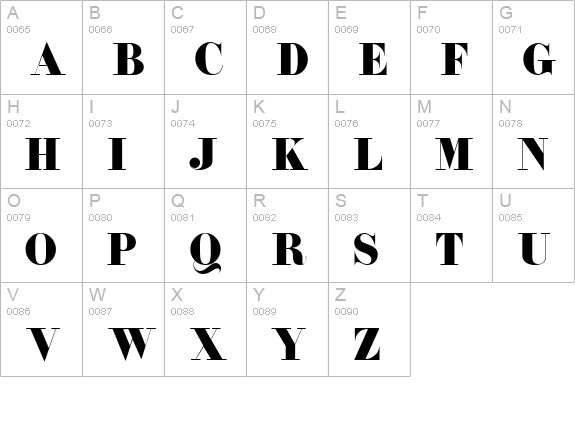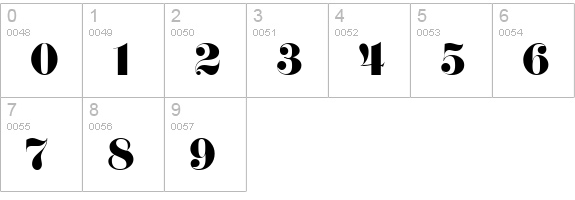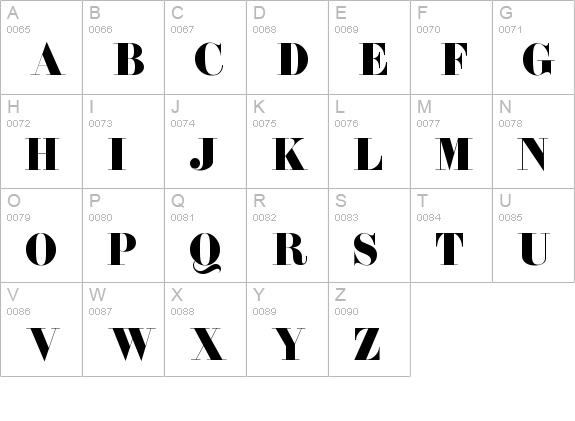
Firenze Regular is the standard, neutral variant in the Firenze typeface family \xE2\x80\x94 well suited to general body text, paragraphs, and standard typographic work.
Firenze Regular is a modern and elegant typeface that exudes sophistication and style. With its clean lines and balanced proportions, this font is perfect for a wide range of design projects, from branding to editorial design. The timeless appeal of Firenze Regular makes it a versatile choice for both print and digital applications. The best part is that Firenze Regular is available for free download at FontsMarket.com. This means you can easily access this high-quality font without any cost, allowing you to bring a touch of class to your designs without breaking the bank. So why wait? Download Firenze Regular today and elevate your design projects with this beautiful typeface.